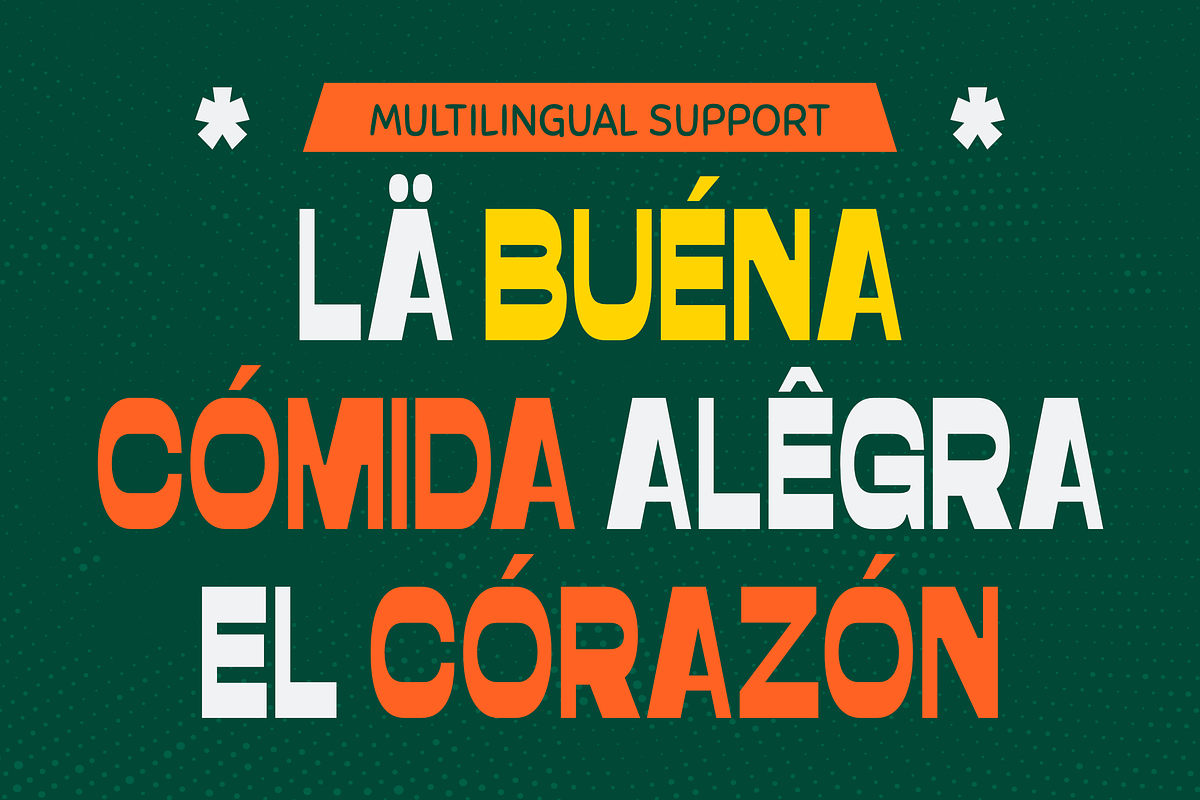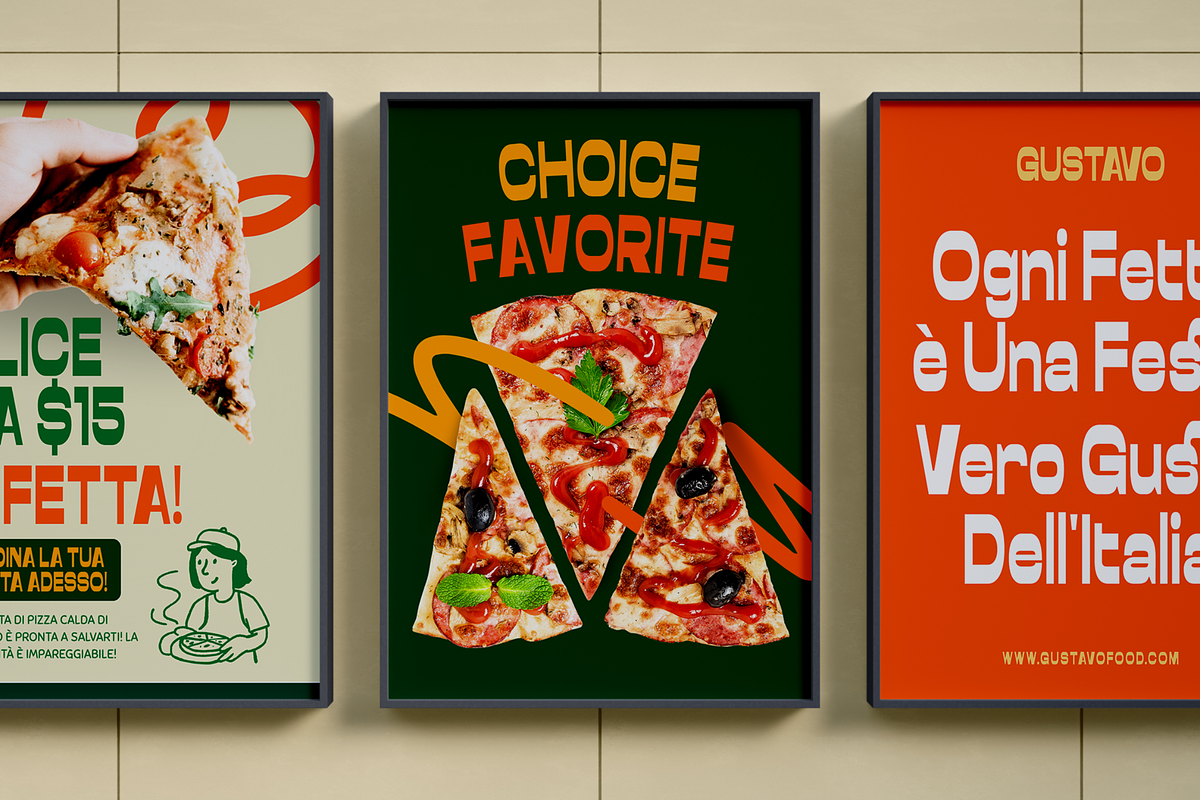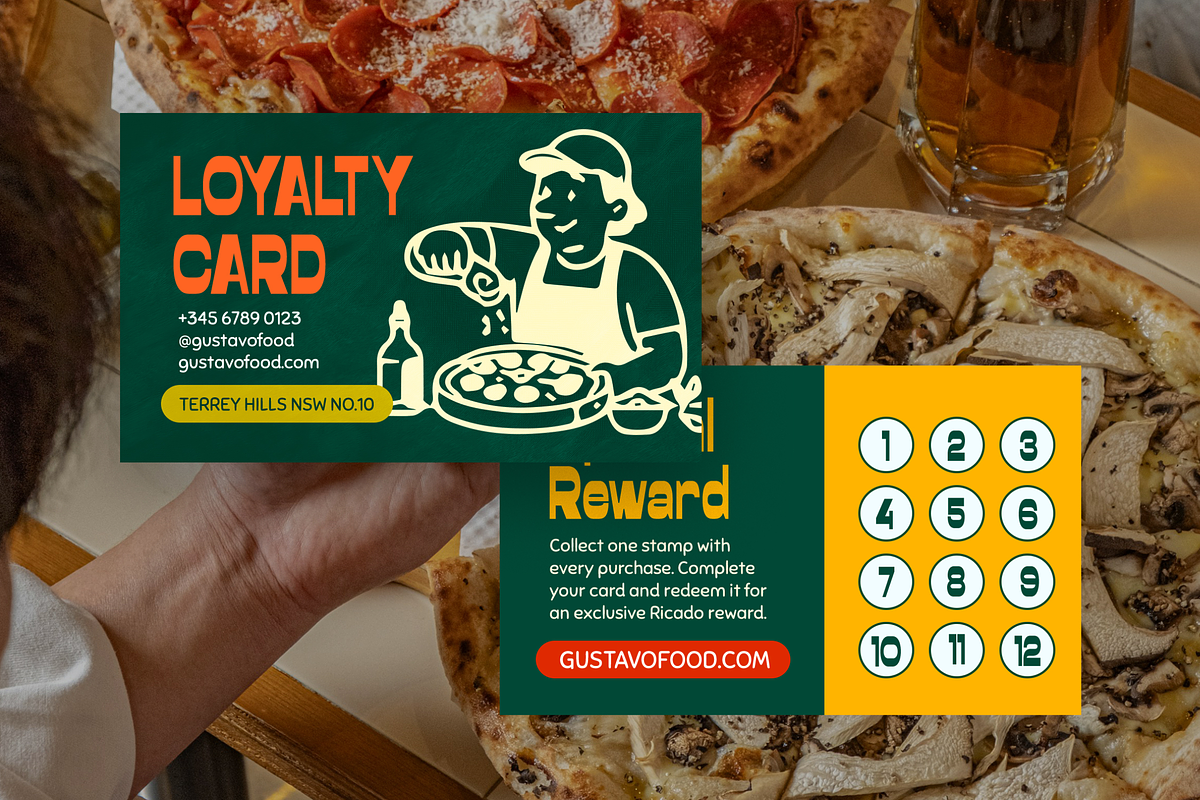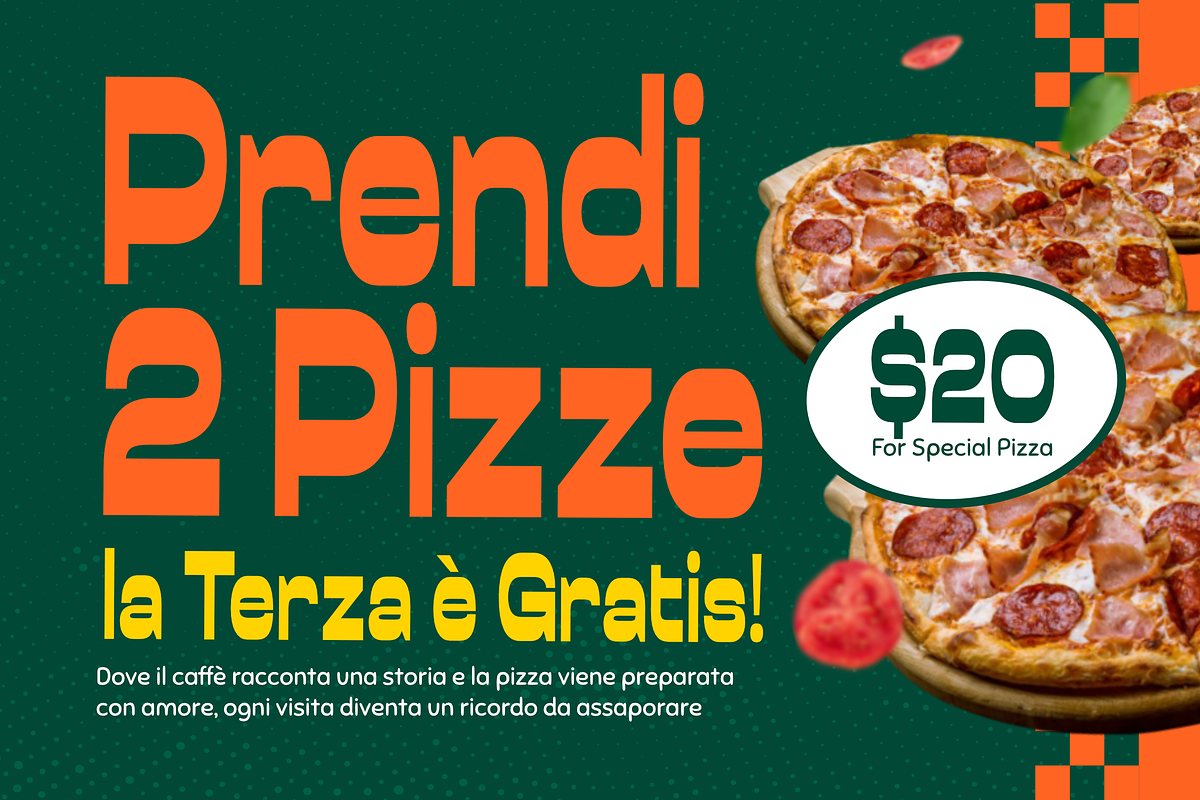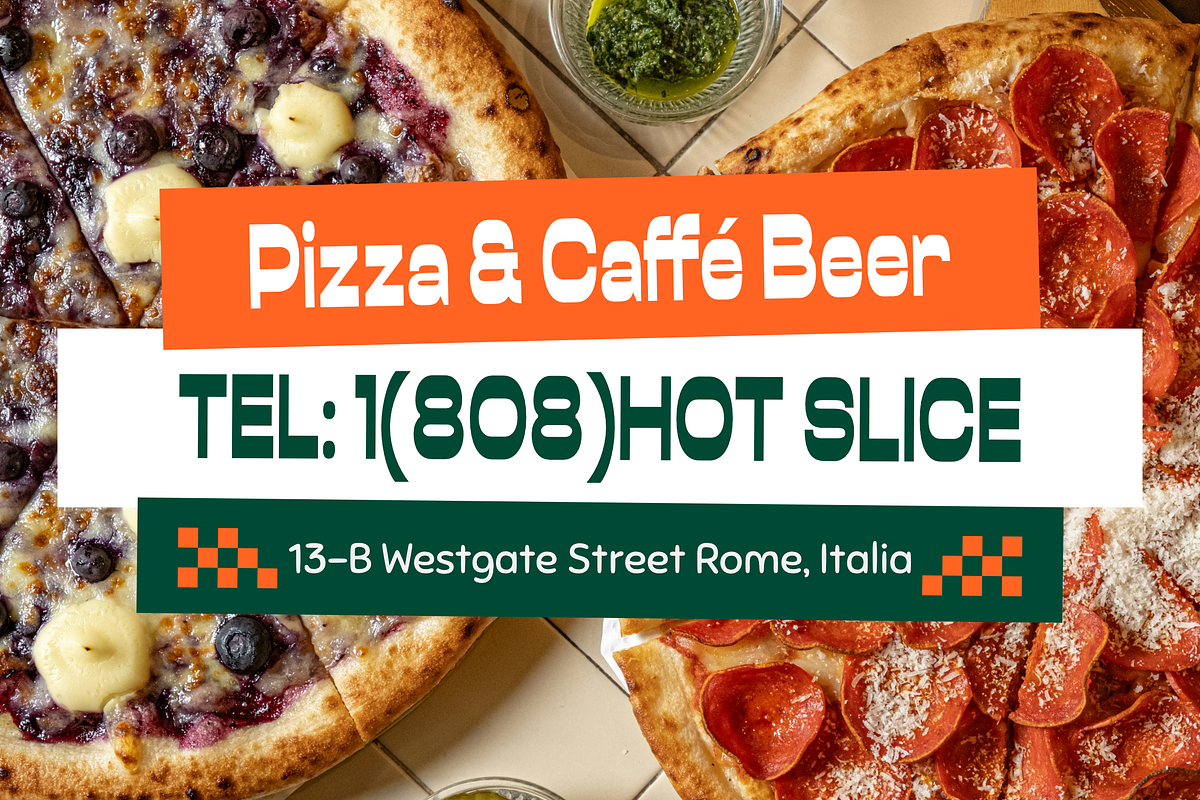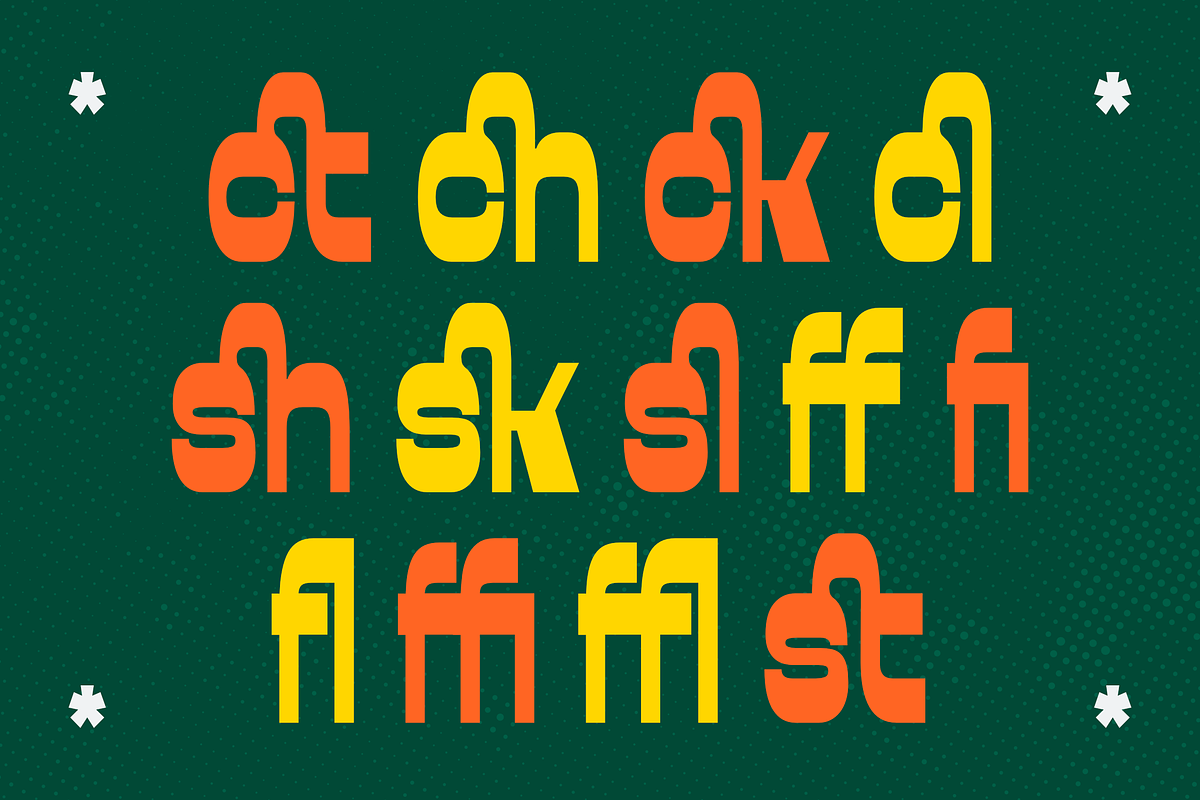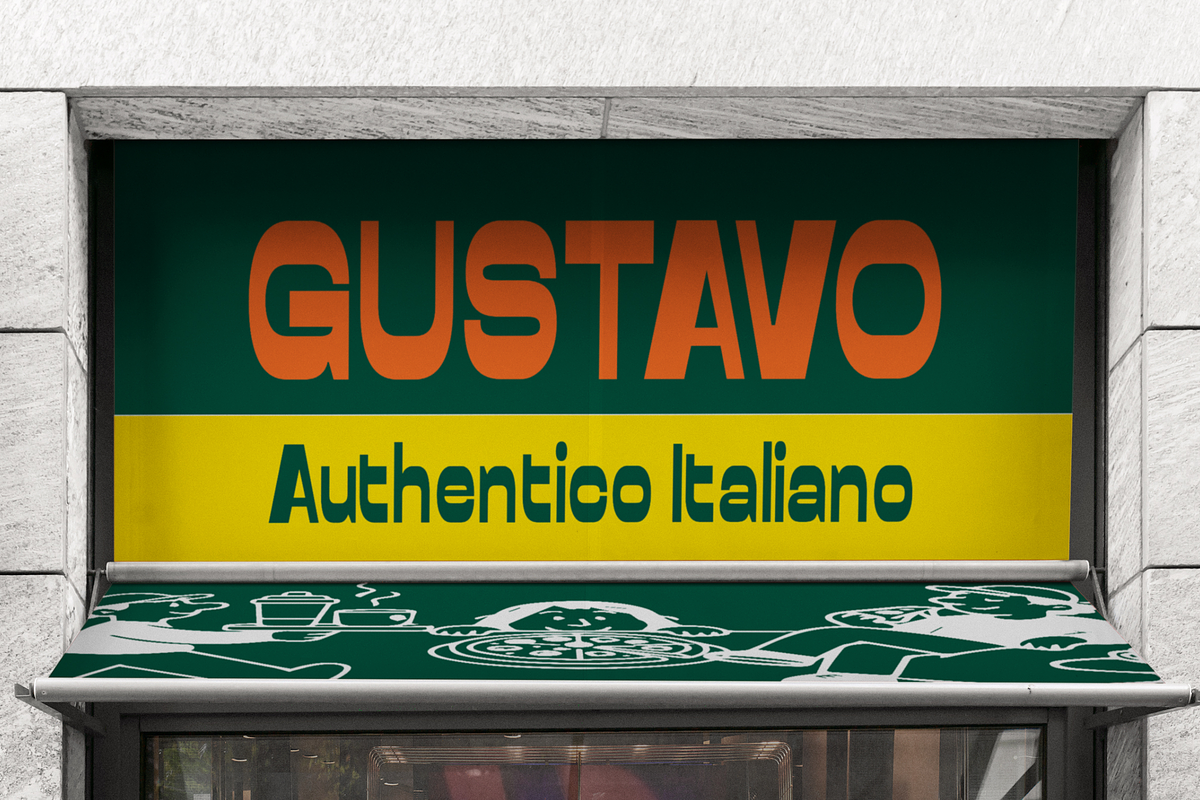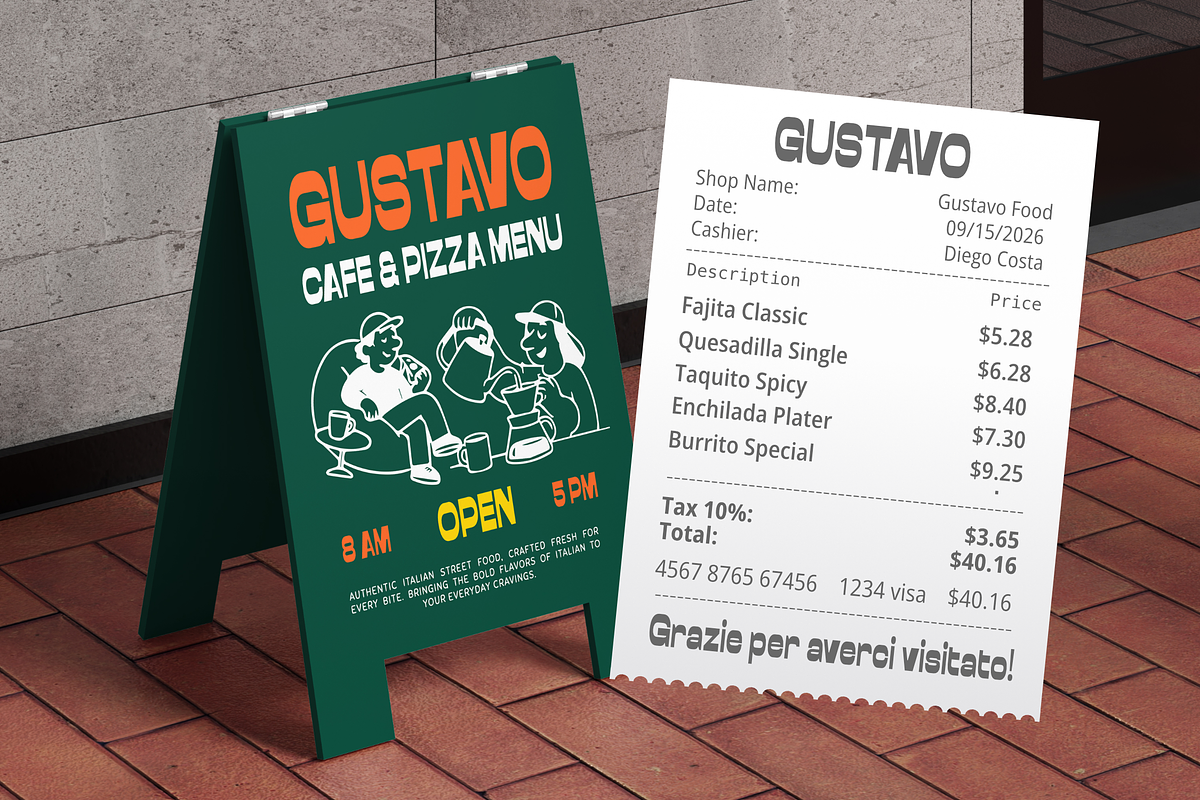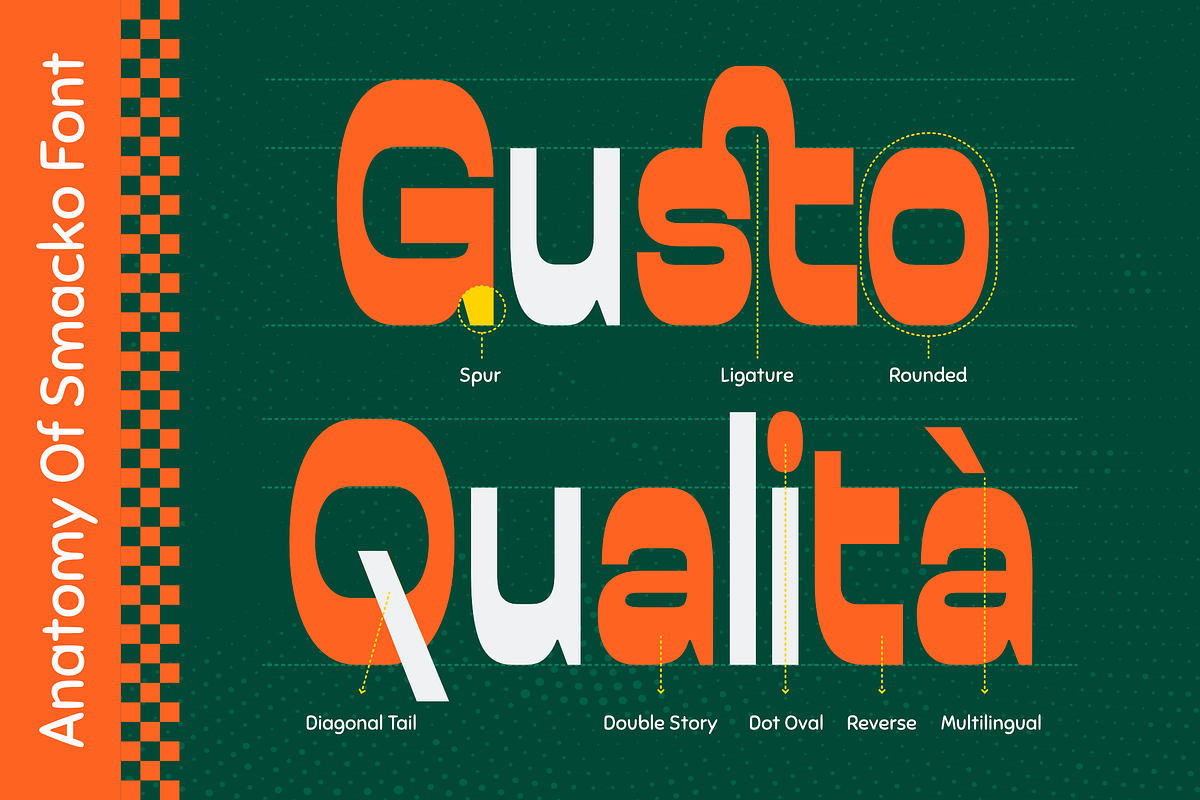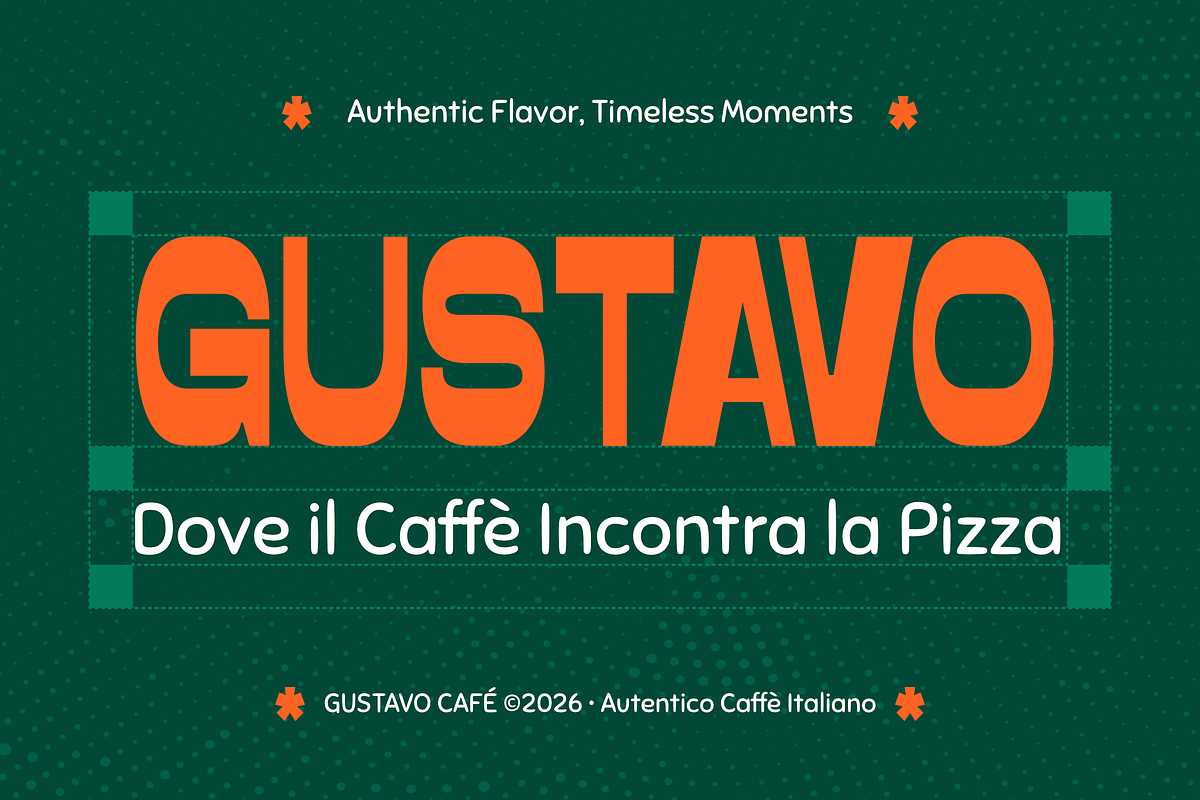
Smacko - Bold Reverse Retro Sans
Smacko - Bold Reverse Condensed Sans Serif Font for Posters, Branding & Headlines.
Smacko is a bold reverse condensed sans serif font featuring thick geometric letterforms, distinctive reverse contrast, compact proportions, and a clean contemporary appearance. Designed to maximize visual impact, it delivers bold, energetic typography that immediately grabs attention across branding and promotional design.
Perfect for logos, posters, sports branding, food packaging, beverage labels, advertising campaigns, social media graphics, merchandise, and bold editorial headlines. Bring bold personality and unforgettable impact to every headline with Smacko.